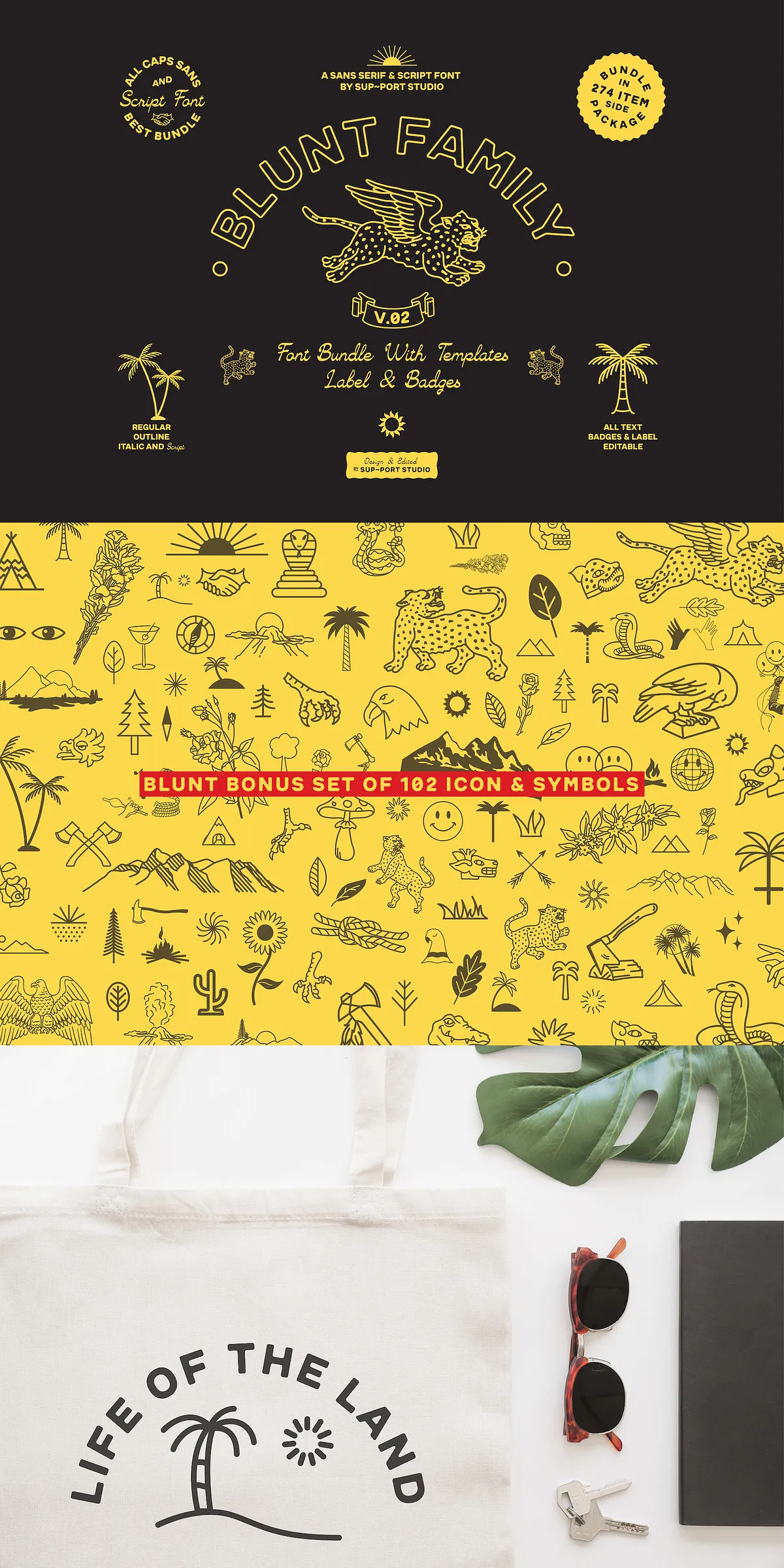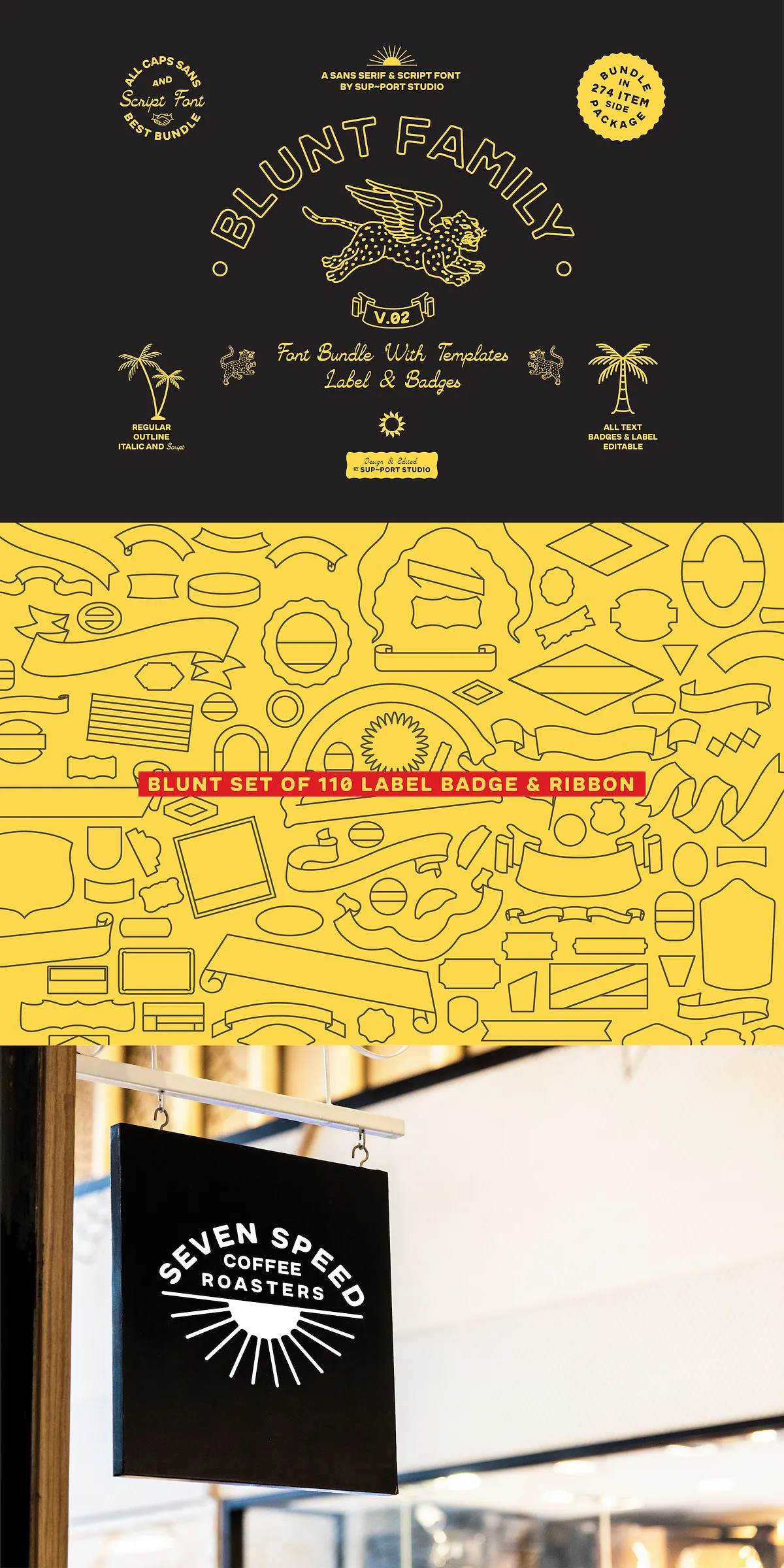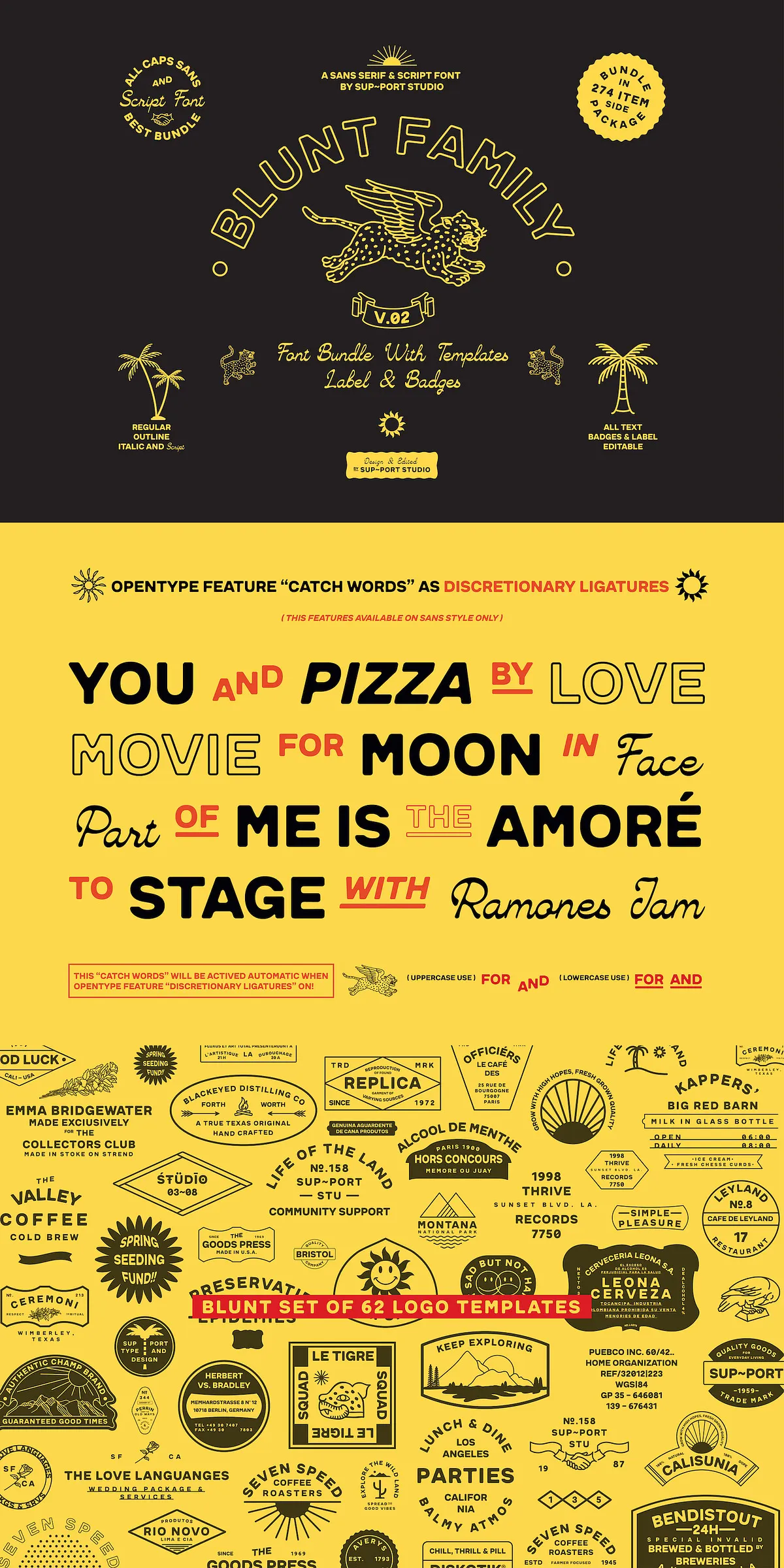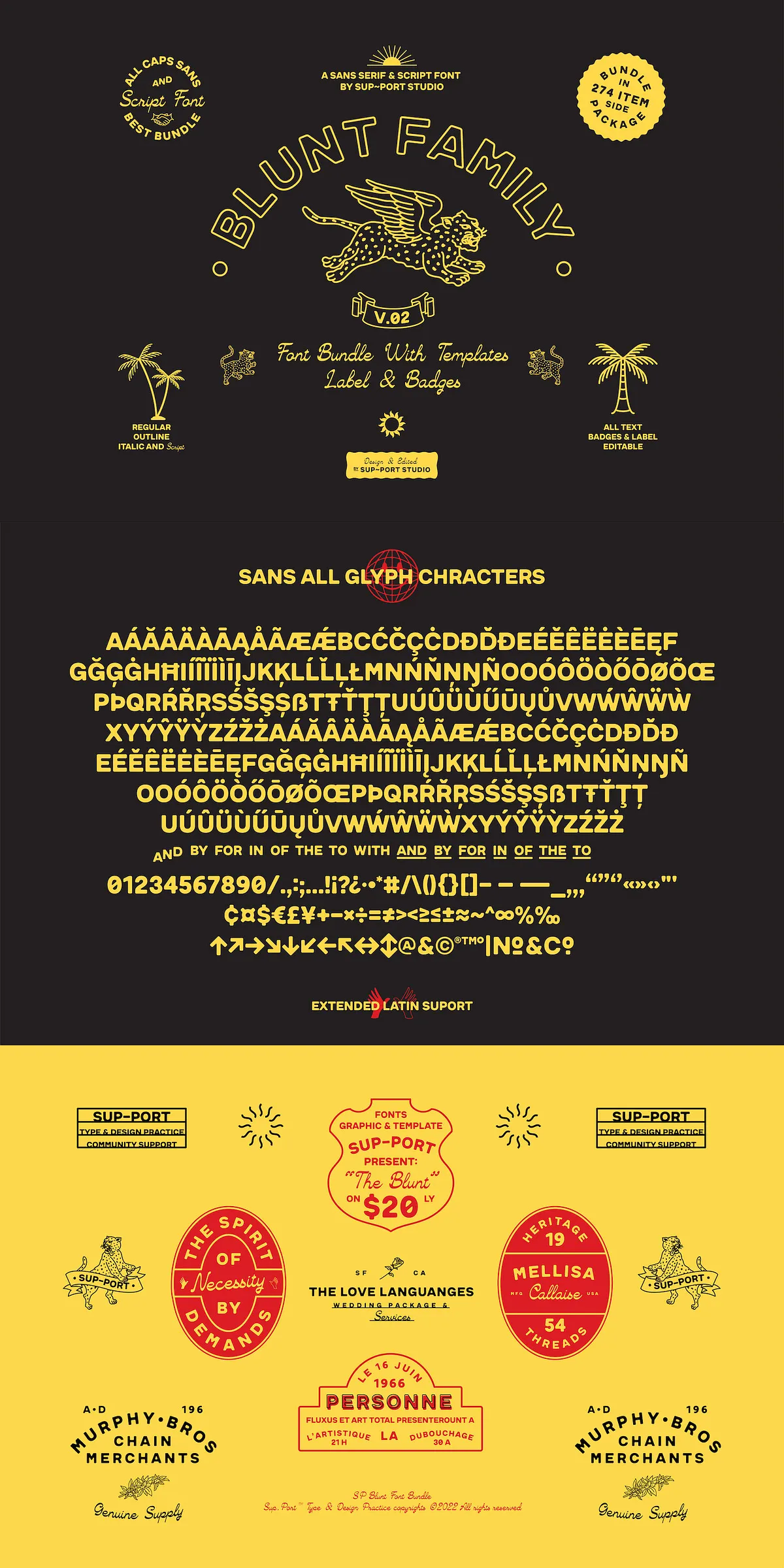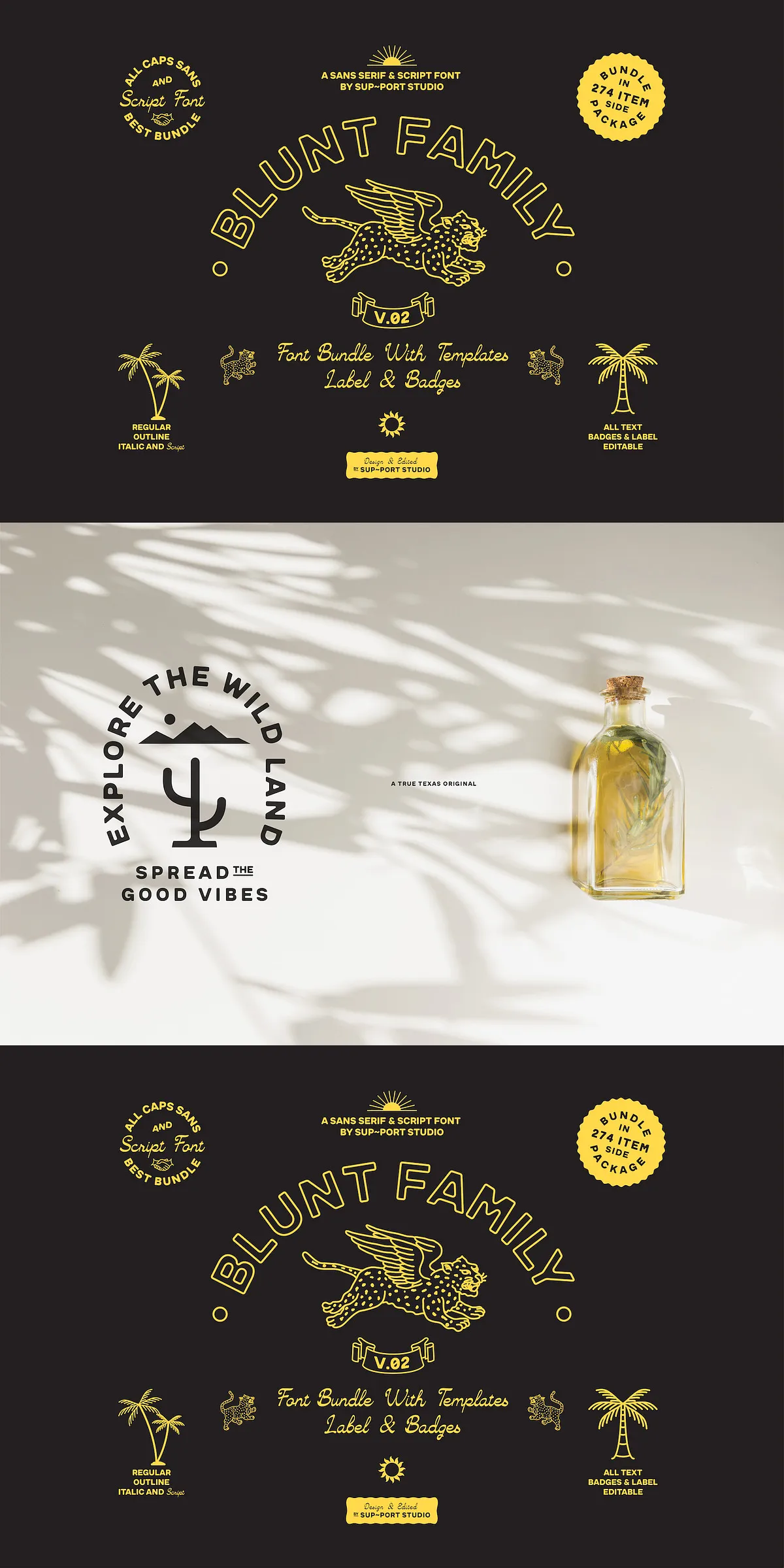
Transform your creative projects with the Blunt Family — a powerful, all-in-one design bundle that fuses striking typefaces, reusable templates, and editable branding assets into one high-impact solution. Perfect for designers who demand versatility, elegance, and speed, this bundle delivers instantly usable design firepower across digital and print mediums.
Dynamic Typography That Defines Your Style
Four Distinct Fonts for Every Creative Need
The Blunt Family isn’t just one font — it’s a complete visual language. With four uniquely crafted styles, you get maximum flexibility:
- SP BLUNT Regular — A bold, clean foundation for headlines, logos, and modern branding with a precise, structured presence.
- SP BLUNT Italic — Adds fluid motion and expressive character, ideal for accent text, product names, or editorial copy.
- SP BLUNT Outline — Delivers a high-impact, graphic silhouette perfect for logos, t-shirt designs, and signage with instant visual pop.
- SP BLUNT Script — Brings elegant hand-drawn flair to invitations, labels, and branding elements where personality and finesse matter.
Each font maintains the core identity of the family while adapting to diverse design scenarios — ensuring consistency and creative freedom in one unified system.
Instant Branding Power: Templates & Badges at Your Fingertips
62 Editable Logo Templates That Save You Hours
No more starting from a blank canvas. The Blunt Family comes with 62 professionally designed logo templates, fully editable and ready to customize. Change text, colors, icons, and layout instantly — ideal for logo designers, small businesses, and branding agencies. Use them for startups, fashion labels, coffee shops, or artistic collectives. Every template is structured for quick adaptation, so your next project launches faster.
110 Editable Ribbons & Badges for Marketing Impact
Amplify your design communication with 110 fully editable ribbon and badge templates. Whether highlighting limited-edition drops, seasonal sales, or eco-friendly labels, these assets deliver immediate credibility and visual authority. Adjust stroke width, colors, text, and placement in seconds — no need to redraw. Perfect for packaging, t-shirt designs, social media graphics, and digital ads.
Pro-Grade Design Features for Professional Results
Advanced OpenType Features for Precision Typing
Designed for creators who care about detail, the Blunt Family includes robust OpenType features:
- Ligatures — Automatically replace awkward letter combinations with elegant, seamless joins (e.g., “fl,” “ff,” “fi”).
- Ordinals — Apply correct superscript formatting for “1st,” “2nd,” “3rd” without manual tweaks.
- Stylistic Sets — Unlock alternative styles for consistent, professional typography across your projects.
- Extended Latin Support — Covers European languages with diacritics, ensuring global usability.
- Currency Symbols, Arrow Icons, Fraction Support — Pre-installed for instant access in financial, editorial, and technical documents.
These features ensure your typography is not only beautiful but functional and consistent across all projects.
Bonus: 102 Icon & Symbol Pack for Design Unity
Complete Your Visual Language with a Custom Icon Set
Enhance your branding with the exclusive bonus pack of 102 icons and symbols — curated to match the modern vintage, elegant aesthetic of the Blunt Family. Use them in social media graphics, packaging, t-shirt designs, app interfaces, or signage. The icon set includes:
- Nature & sustainability icons (leaf, mountain, water, eco)
- Typography & design tools (pen, brush, palette)
- Time, currency, location, and navigation symbols
- Custom geometric shapes and decorative accents
All icons are vector-based, scalable, and fully customizable — so you maintain brand harmony at every scale.
Perfect for Every Project That Demands Impact
From Brand Launches to Limited Editions — Get It Done Fast
The Blunt Family is engineered for real-world creative challenges. Use it for:
- Logos & Brand Identity — Create instantly recognizable, powerful brand marks.
- Apparel & Merchandise — Design t-shirts, hats, bags, and limited runs with bold, readable fonts.